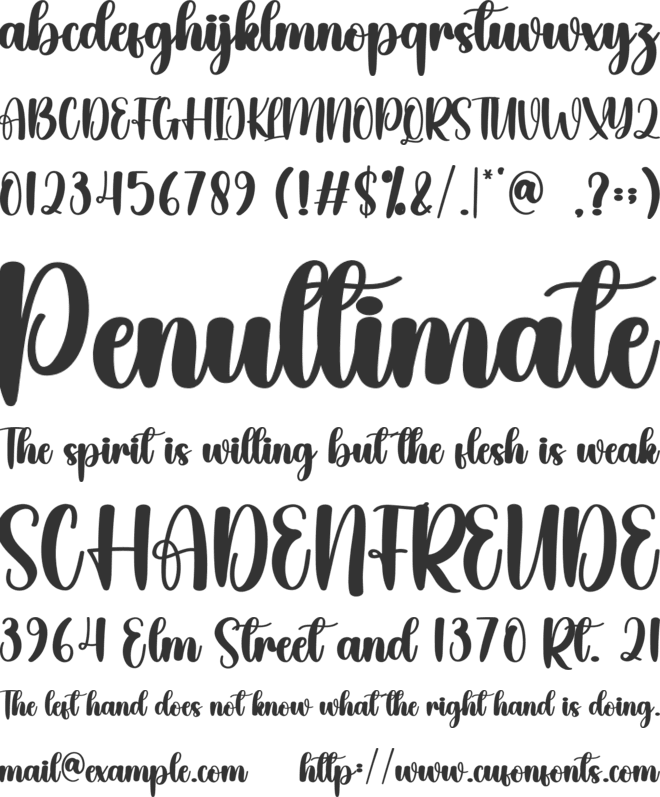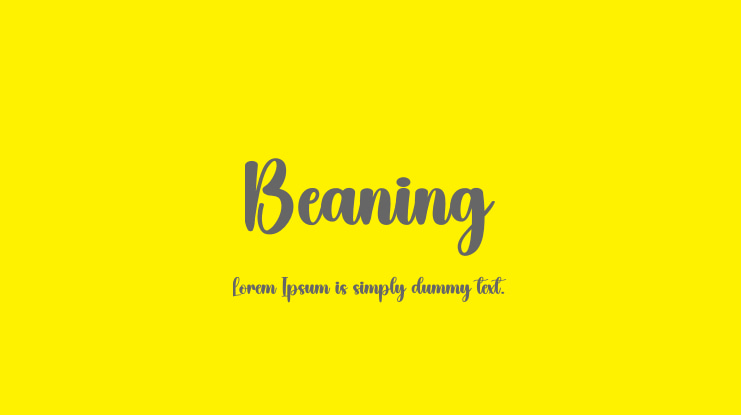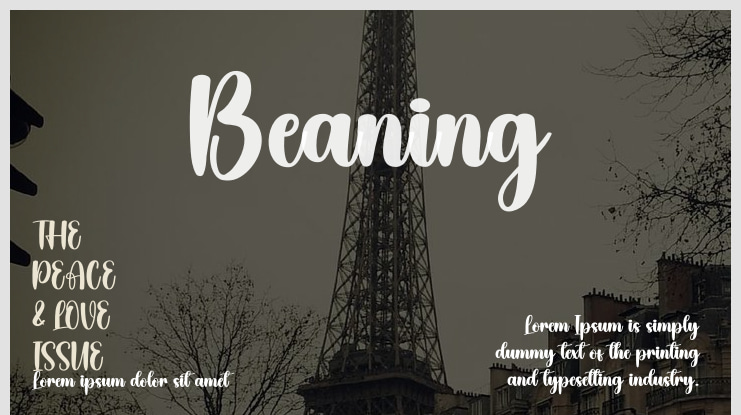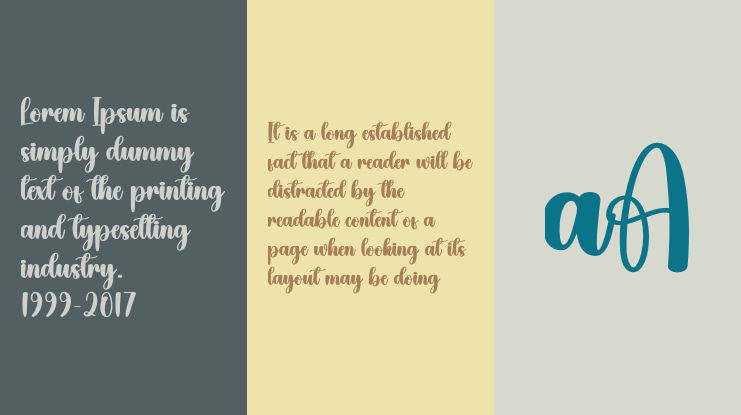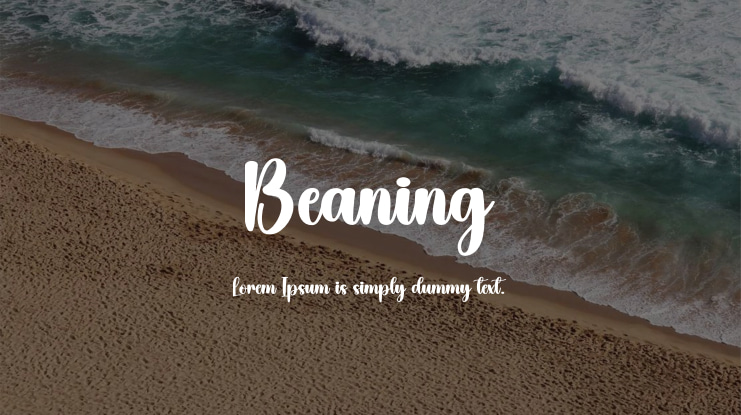
Discover our special creative products crafted just for you, designed to provide an extraordinary experience. Our latest style letters are ideal for enhancing wall displays, wedding invitations, social media post logos, advertisements, product packaging, product designs, labels, photography, watermarks, invitations, stationery, and any project that requires tasteful handwriting.